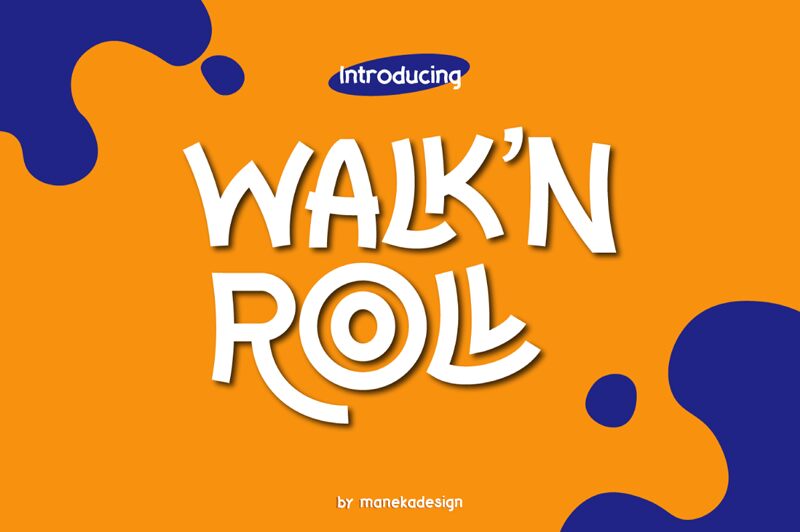
Get ready to groove with Walk N Roll, the latest addition to the ManekaDesign display font collection. With its groovy style and unique flair, this font is perfect for any project that needs a little bit of funkiness. Whether you're designing posters for a music festival, creating branding for a retro-themed party, or adding some personality to your social media graphics, Walk N Roll is the semi-bold typeface that will get people talking. With its wide width and playful vibe, this font will bring your designs to life and make sure they stand out from the crowd. Get ready to walk and roll with Walk N Roll!